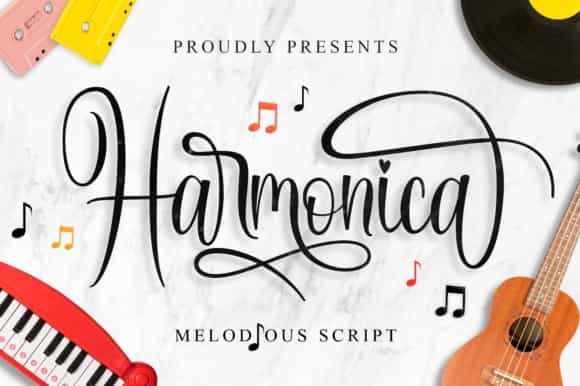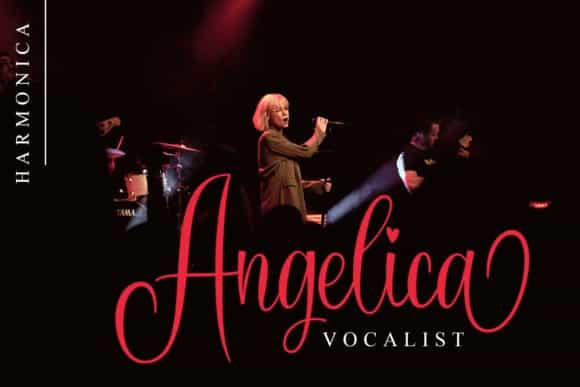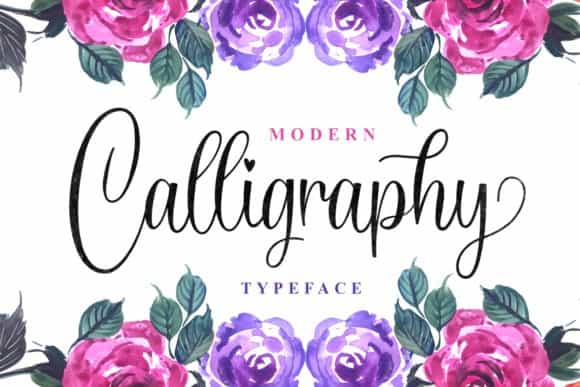
Harmonica Font has a complete set of beautiful uppercase and lowercase letters, numerals, a large variety of punctuation marks and ligatures. The all lowercase letters have the beginning and ending swashes, which give a realistic handwritten style.